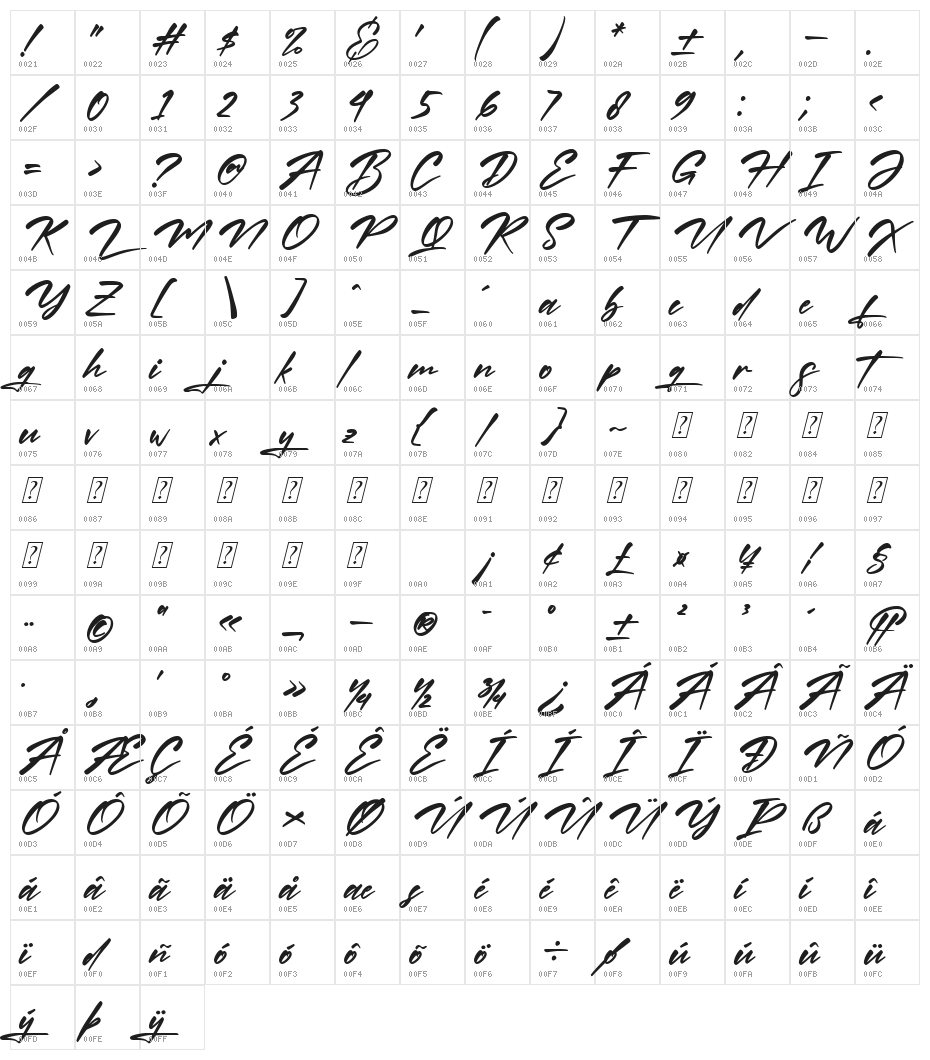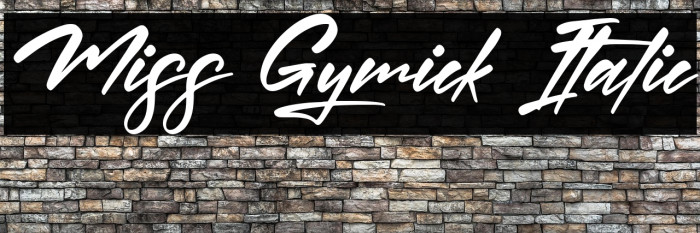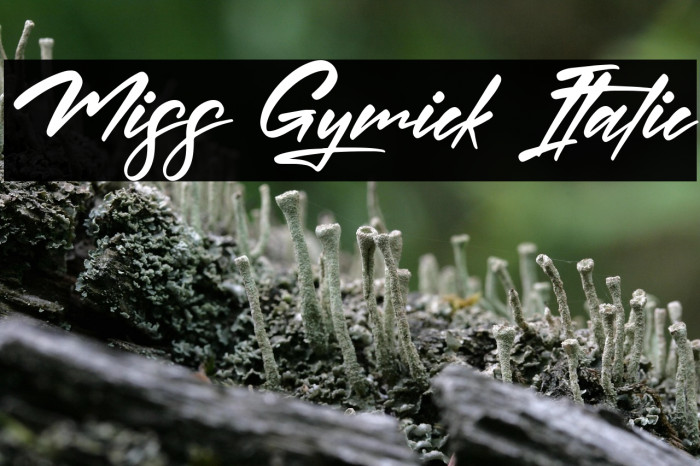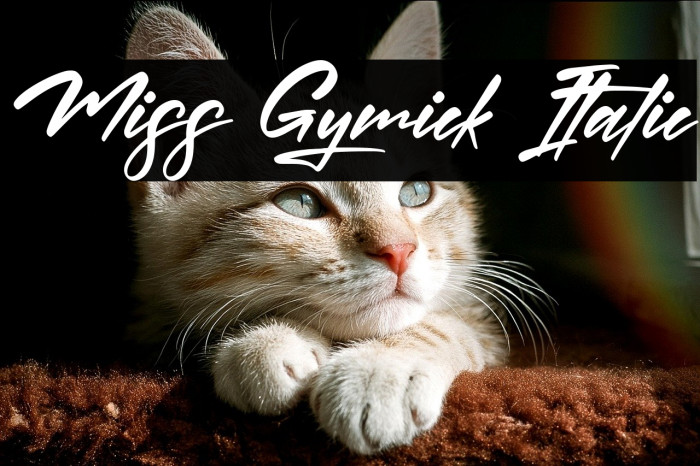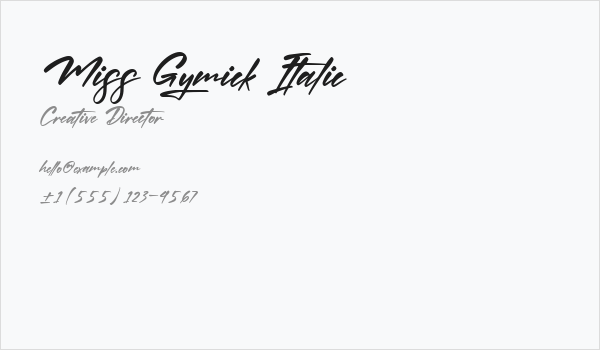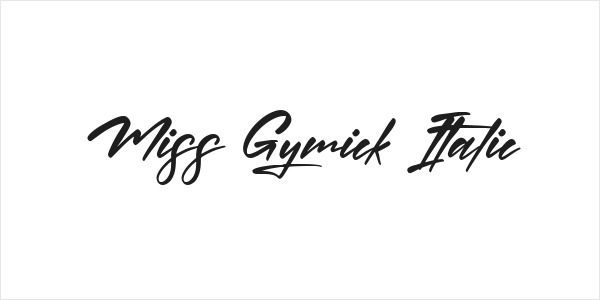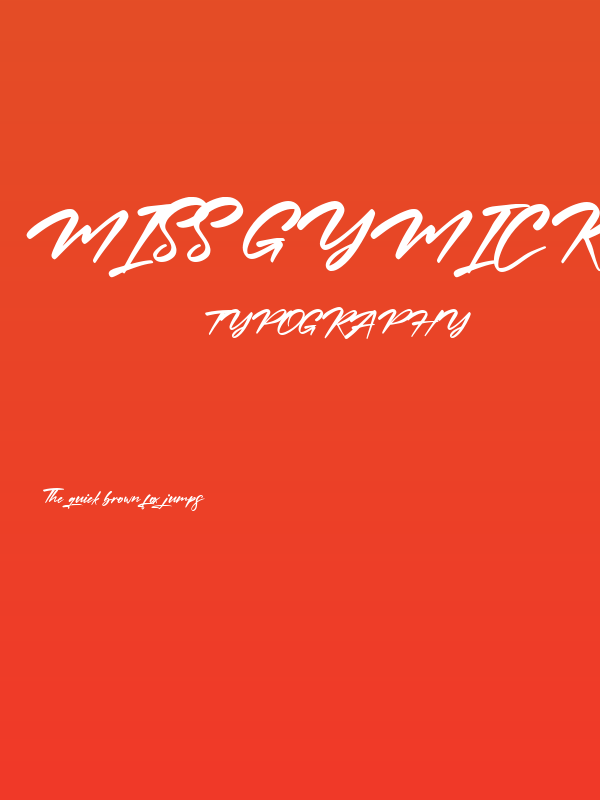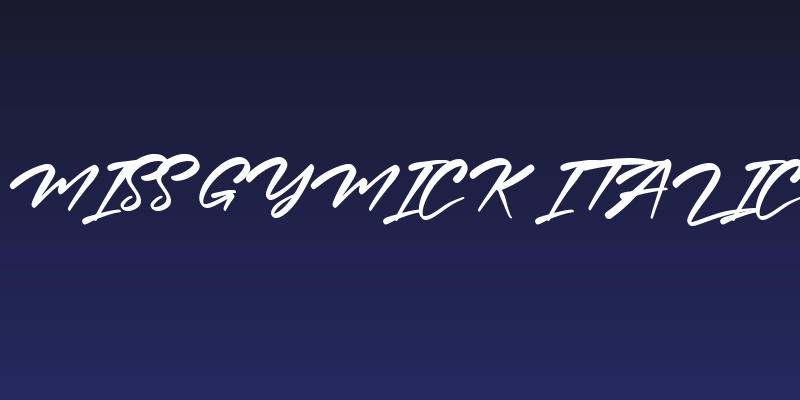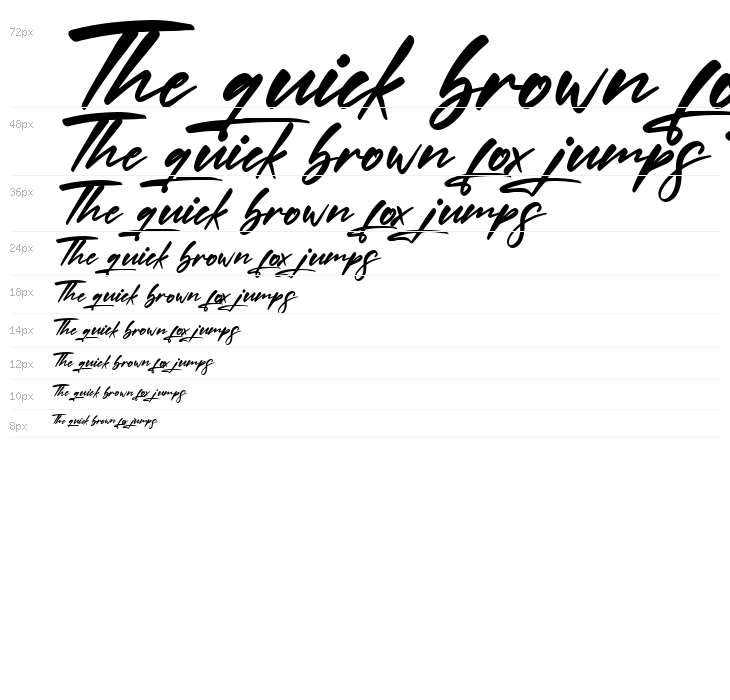
Miss Gymick Italic Font
Miss Gymick Italic Description
This font exudes a dynamic and energetic style, characterized by its fluid, cursive script. The letters are interconnected with a smooth flow, giving it a handwritten appearance. The strokes are bold and expressive, with a slight slant that enhances its italic nature. The uppercase letters are slightly more elaborate, while the lowercase letters maintain a consistent rhythm. Numbers and special characters are crafted with the same lively flair, making the font suitable for creative and artistic projects.